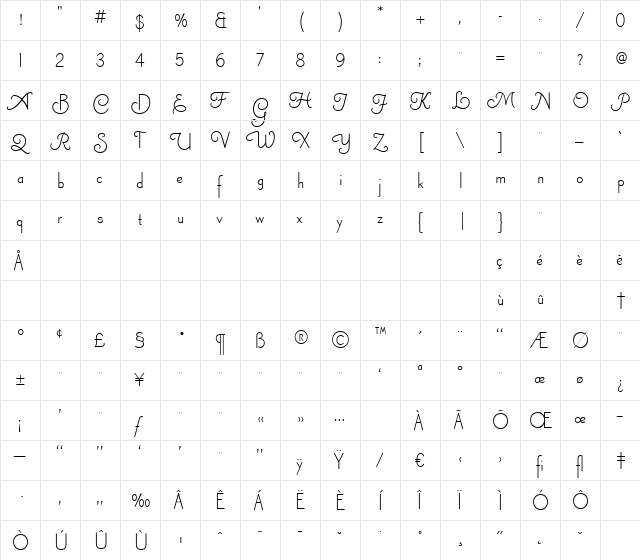
Canterbury Sans Swash RR Light
Design Context for Canterbury Sans Swash RR Typeface
Canterbury Sans Swash RR brings a calligraphic fluidity to the page — its connecting strokes and expressive curves give it an unmistakably human quality. The delicate stroke weight brings airiness and refinement to layouts.
Font Pairing: Combine Canterbury Sans Swash RR with a simple geometric sans for maximum contrast — the tension between flowing curves and clean structure is a classic typographic pairing.
Pro Tip: Use Canterbury Sans Swash RR for short runs of text — names, titles, or taglines. Extended body copy in script faces tires the eye quickly.